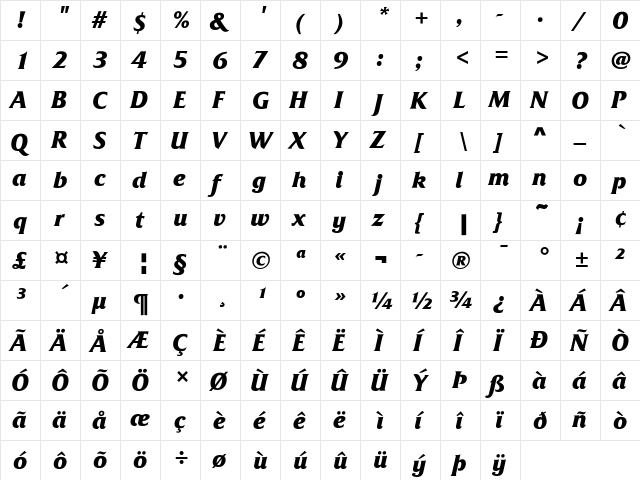
Friz Quadrata Bold Italic
Design Context for Friz Quadrata Typeface
Friz Quadrata is a composed and adaptable typeface that performs quietly and consistently across a wide range of design contexts. The dynamic lean of this cut emphasises speed and emphasis in any layout. The heavy weight commands attention and anchors typographic hierarchies.
Pro Tip: Use Friz Quadrata for emphasis, pull quotes, and subheadings where its slanted energy can add rhythm to the layout.